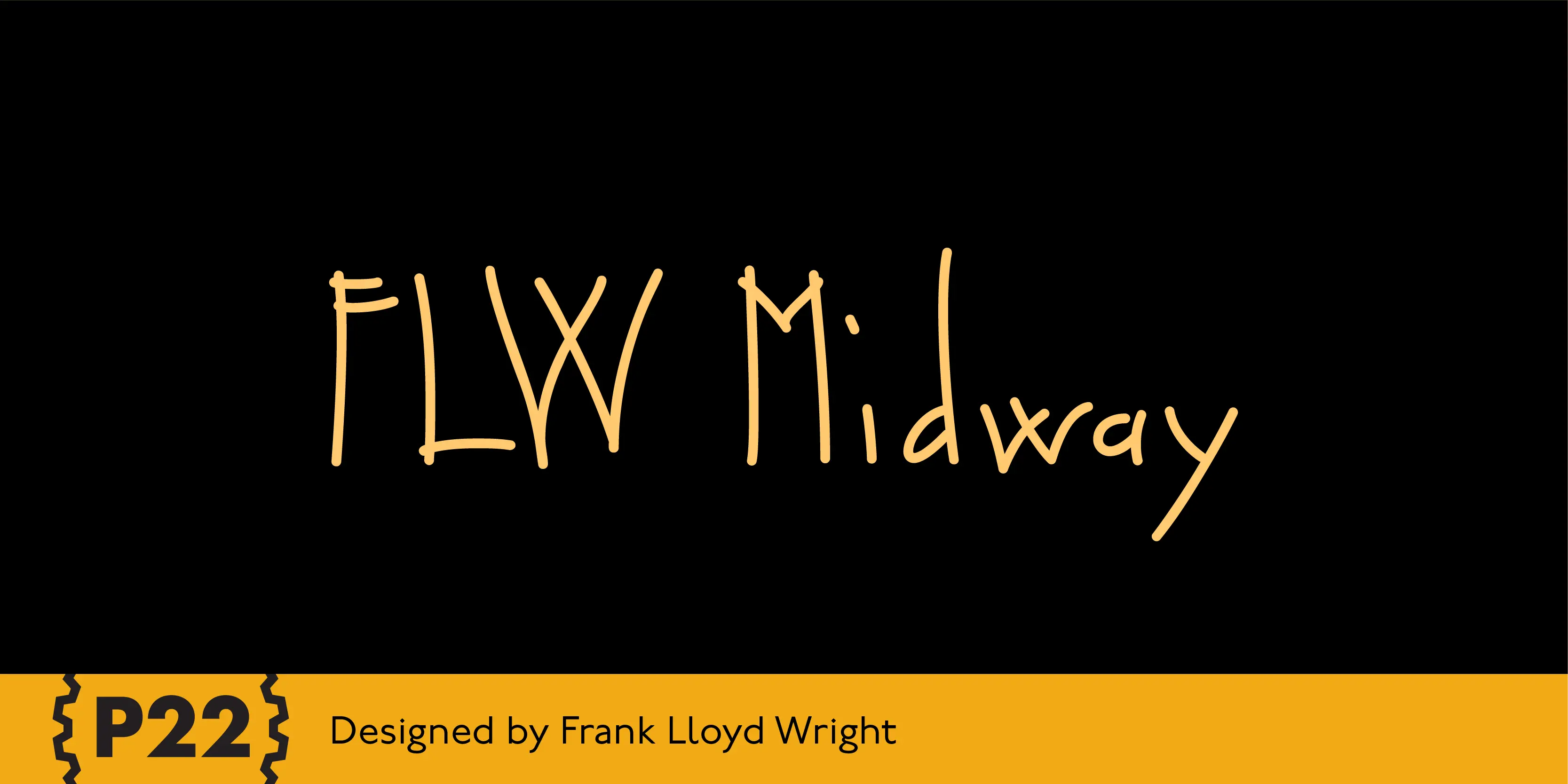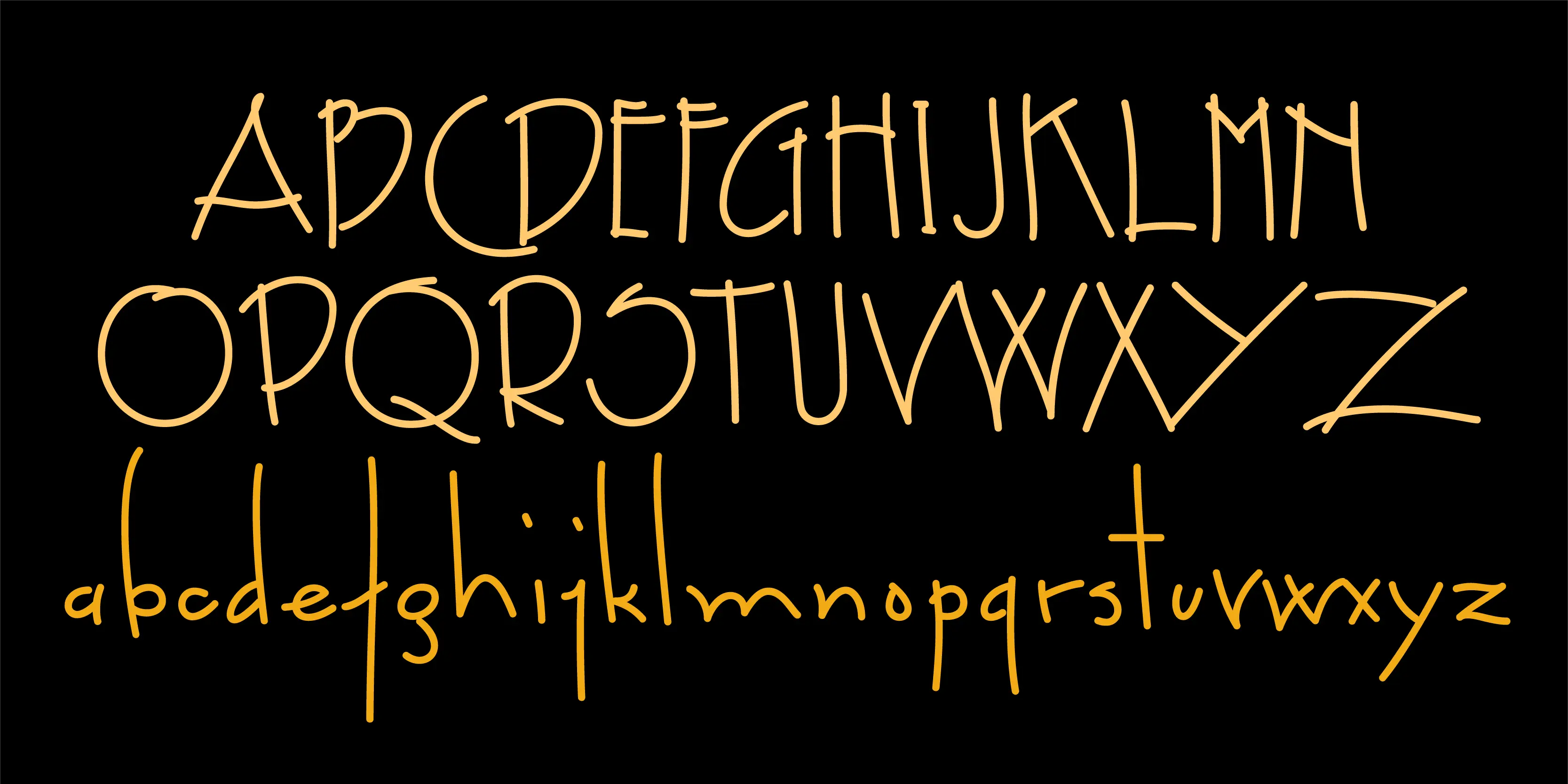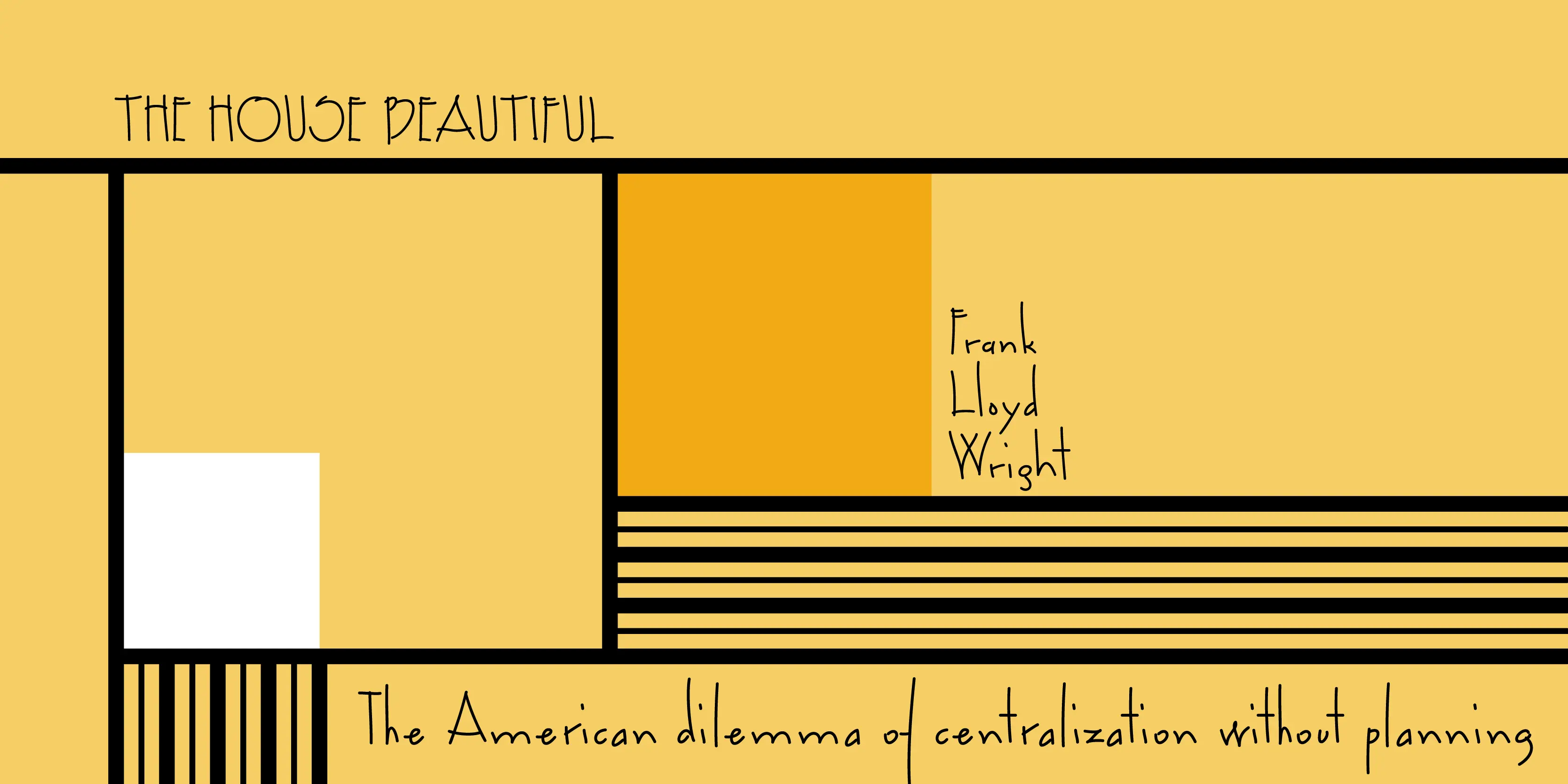
FLW Midway Font Family
FLW Midway
This font set is based on Frank Lloyd Wright’s Script-lettering found on the Chicago Midway Gardens working drawings from 1913. This type of architectural lettering is a bit more casual than standard lettering found on most blueprints. It evokes the personality of Frank Lloyd Wright and complements the other fonts in the P22 FLW font series. Midway One and Midway Two can be used interchangeably to give a more naturalistic feeling of Script lettering. Midway Ornaments features over 100 decorative border elements that can be combined is many ways for surprising and effective decorative motifs. Midway One and Midway Two have been remastered and now contain over 400 characters including support for Western and Central European languages.